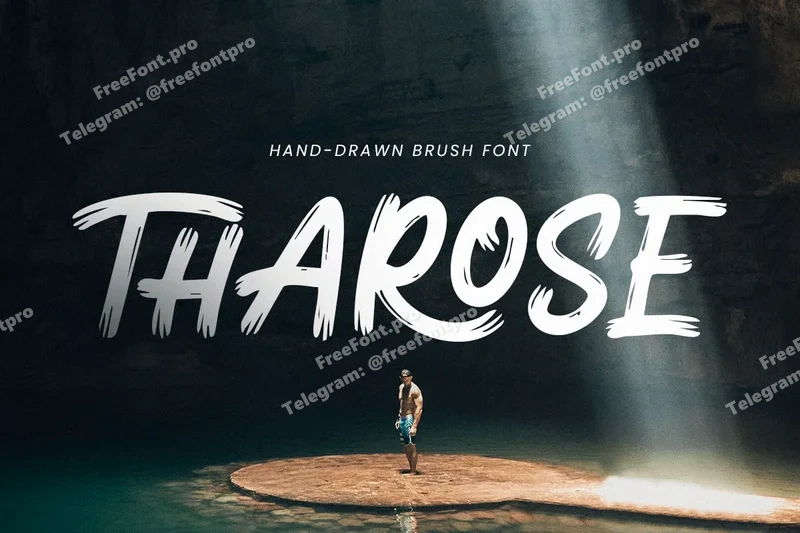
Tharose – Handdrawn Brush Font
HAROSE is a handdrawn brush font designed to bring a casual, artistic, and expressive touch to your creative projects. Ideal for logos, posters, social media, packaging, and branding, it combines a natural hand-brushed style with bold readability.
With its dynamic strokes and organic flow, THAROSE adds personality and energy to both print and digital designs, making it perfect for designers seeking a handcrafted, authentic look.
THAROSE – Handdrawn Brush Font Features
Bold and artistic handdrawn brush characters
Perfect for logos, posters, branding, and creative projects
Uppercase, lowercase, numerals, and punctuation included
OpenType features for extra versatility
Add energy and personality to your designs with THAROSE – the ultimate handdrawn brush font for creative projects! ✨🖌️